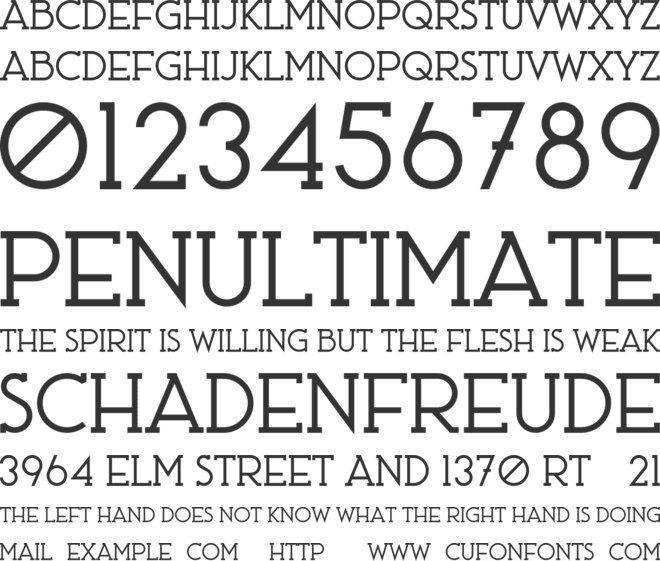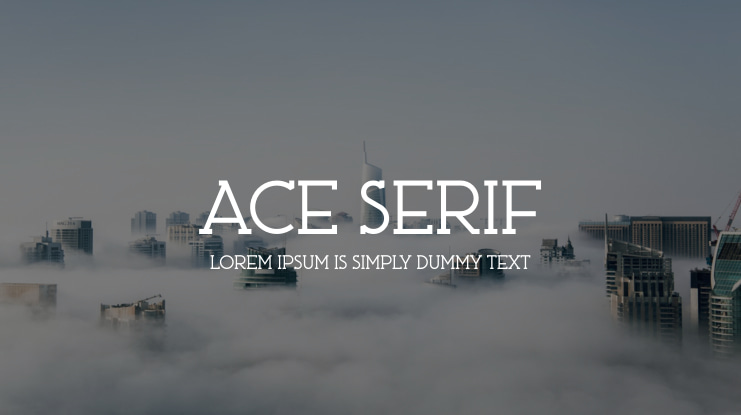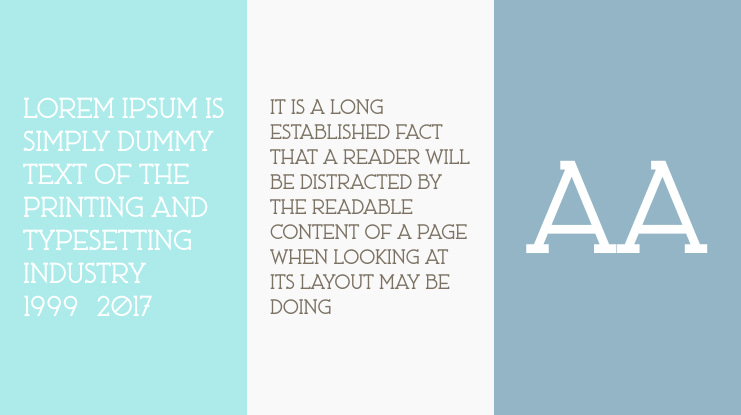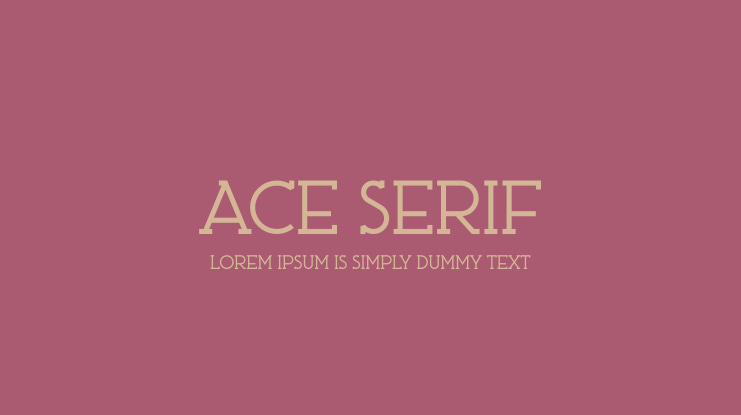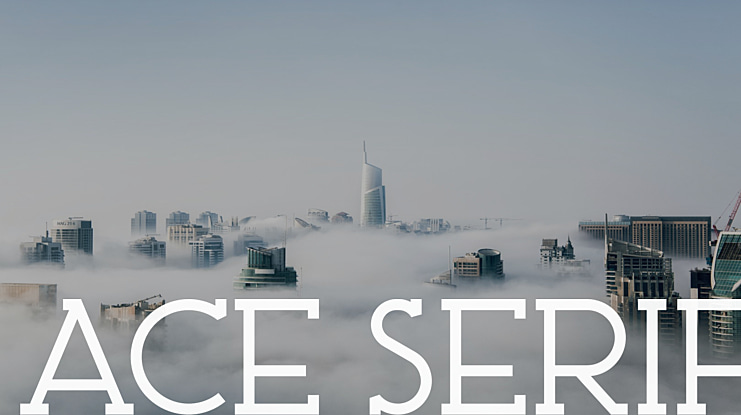
Ace Serif Font
Ace Serif is an impressive font family that exudes a classic and bold style. With a combination of simple and geometric elements, it creates a design that’s both striking and unique. It’s absolutely FREE to DOWNLOAD! It’s the perfect choice for diversifying your headlines, branding visual identity, poster, logo, magazines, and more. Don’t miss out on the opportunity to elevate your designs with Ace Serif. Download now!
- 8 Weights Serif (Thin, Extralight, Light, Regular, Medium, Bold, Extrabold, Black)
- Basic Latin A-Z and a-z
- Numerals & Punctuation
- Multilingual Support for ä ö ü Ä Ö Ü …